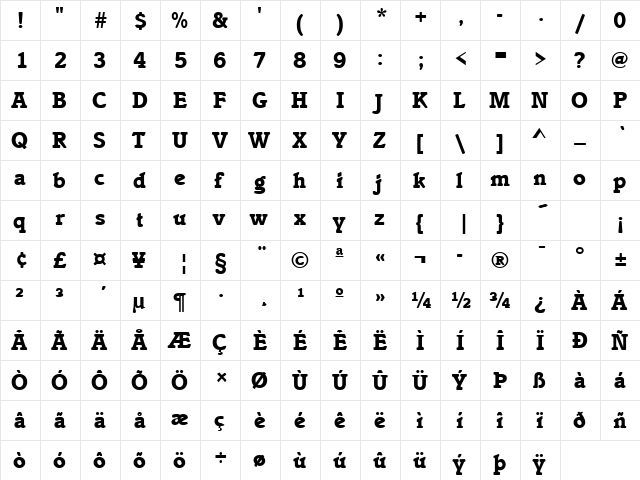
Istria Bold Font Preview
Istria Bold
Istria Bold Font Details
Design Context for Istria Typeface
Istria takes a measured approach to typography — its balanced proportions and neutral character make it a reliable workhorse for both digital and print work. Its bold stroke weight gives it real presence on the page.